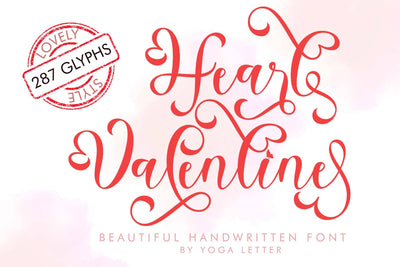
Heart Valentine
"Heart Valentine" is a beautiful handwritten font. It features uppercase and lowercase letters, swashes, alternates, numerals, punctuations, and multilingual support. It's perfect for Valentine's Day, Christmas, weddings, invitations, winter, spring, photography, holidays, Thanksgiving, fall, New Year, summer, holidays, floristry, social media, YouTube, print, banners, branding, and more.